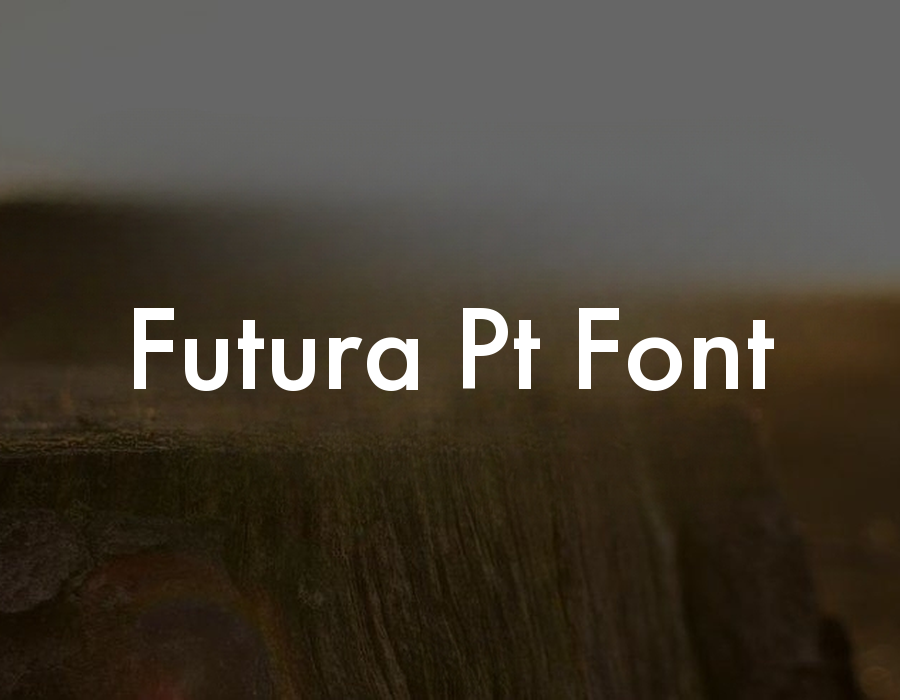
About Futura PT Font
Futura PT is a comprehensive digital revival and expansion of Paul Renner's iconic 1927 geometric sans-serif, Futura. Developed by ParaType, it faithfully preserves the original's clean, circular forms and modernist spirit while significantly extending its utility. The family includes a vast range of weights and widths, from Thin to Extra Bold, and crucially, full support for Cyrillic and extended Latin character sets. This makes it a versatile, internationally-ready version of the classic, suitable for everything from bold headlines and corporate logos to user interfaces and print publications that require Futura's timeless geometry with modern linguistic needs.